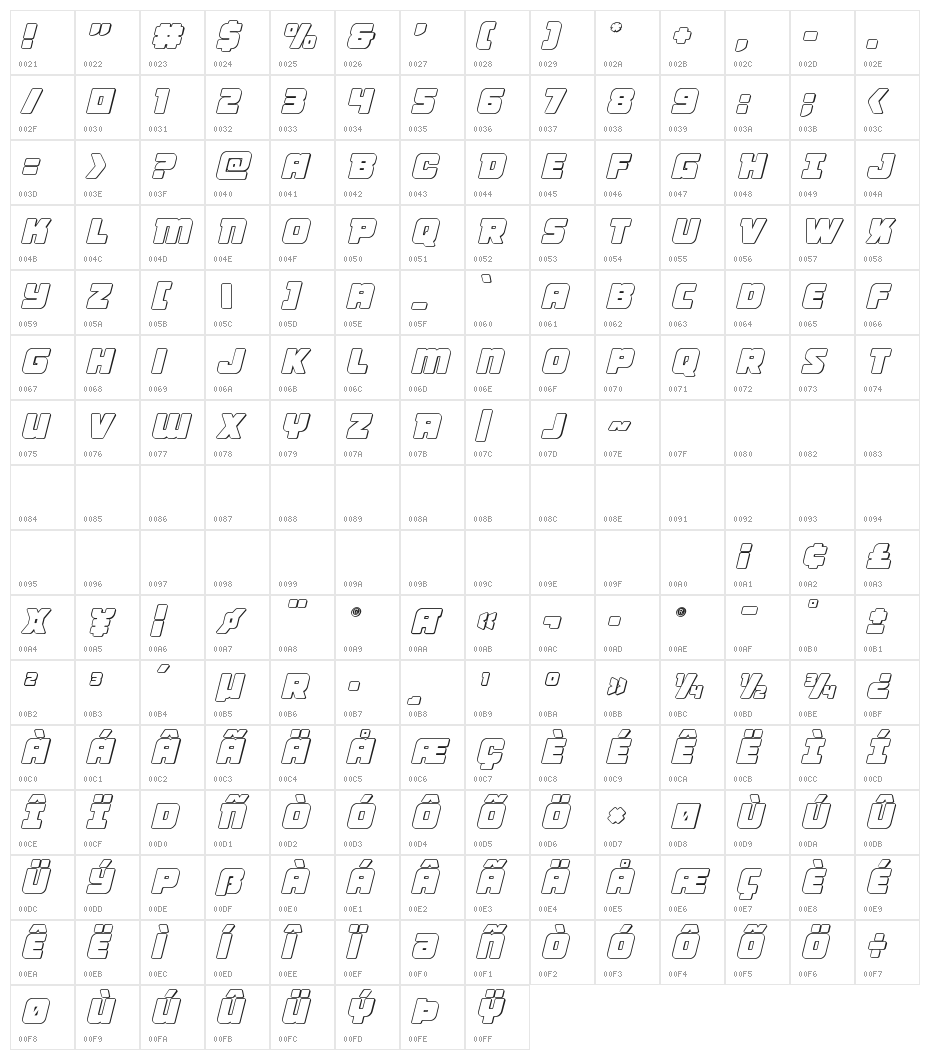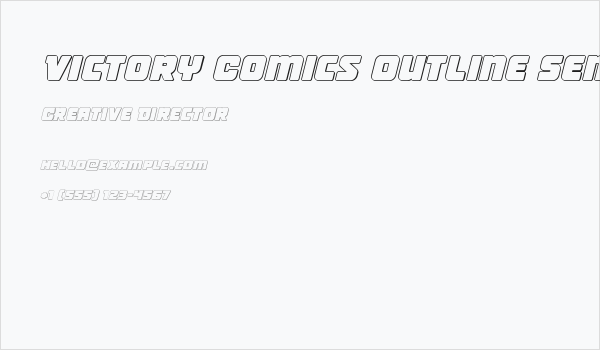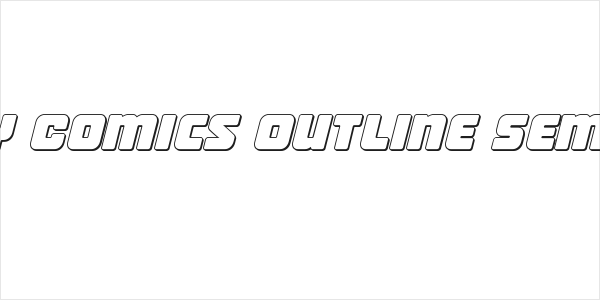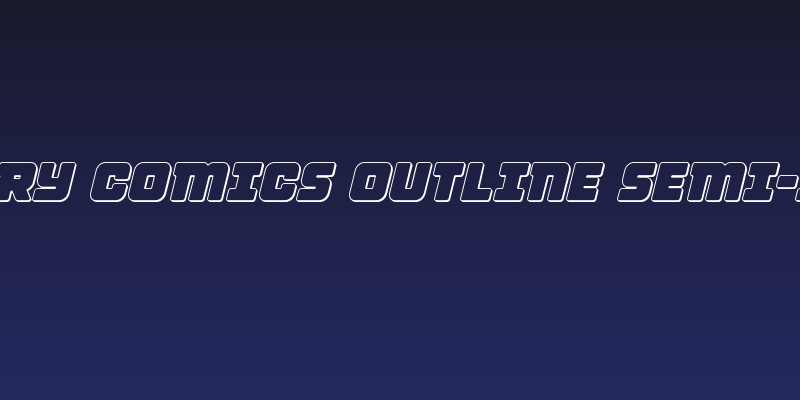
Victory Comics Outline Semi-Italic Font
Victory Comics Outline Semi-Italic Description
This font features a bold, outlined style with a semi-italic slant, giving it a dynamic and energetic appearance. The characters are designed with a thick outline that enhances their visibility and impact, making them ideal for attention-grabbing designs. The uppercase and lowercase letters maintain a consistent width, contributing to a uniform look across different text sizes. The numbers and special characters are crafted with the same bold outline, ensuring a cohesive appearance throughout. The font's playful and modern aesthetic makes it suitable for a variety of creative projects.